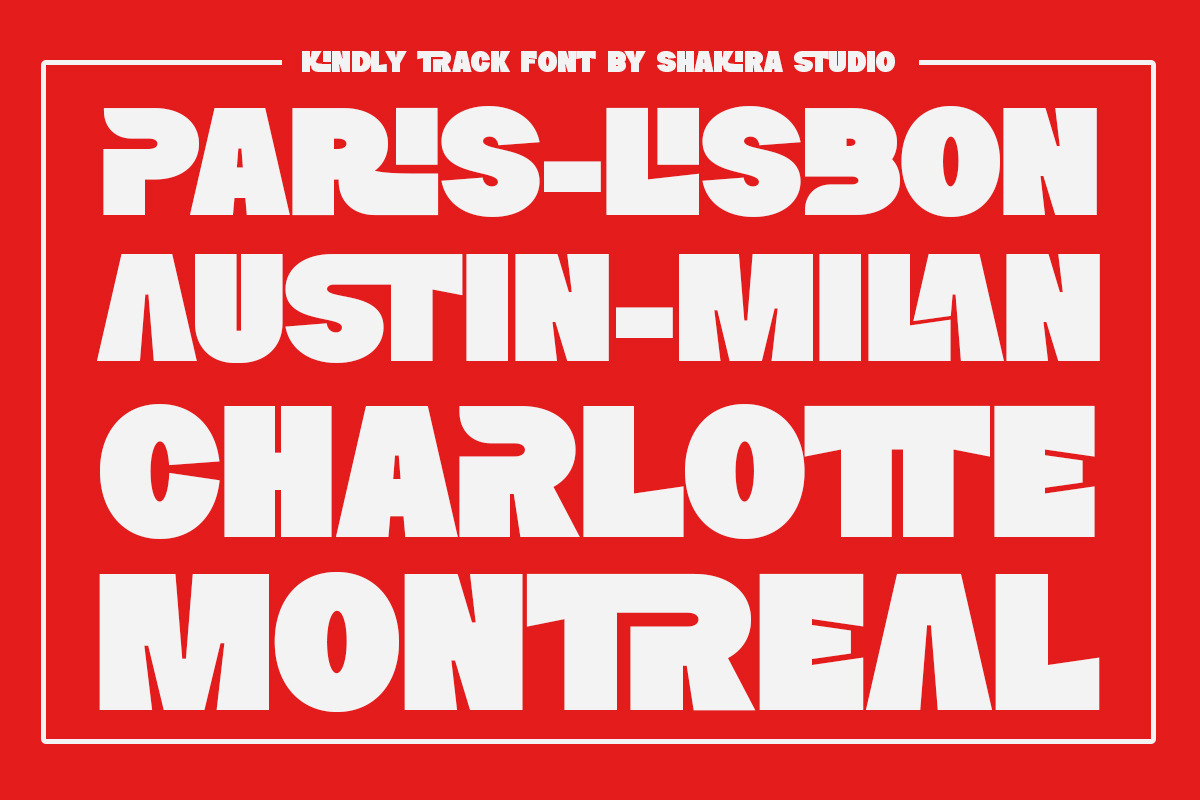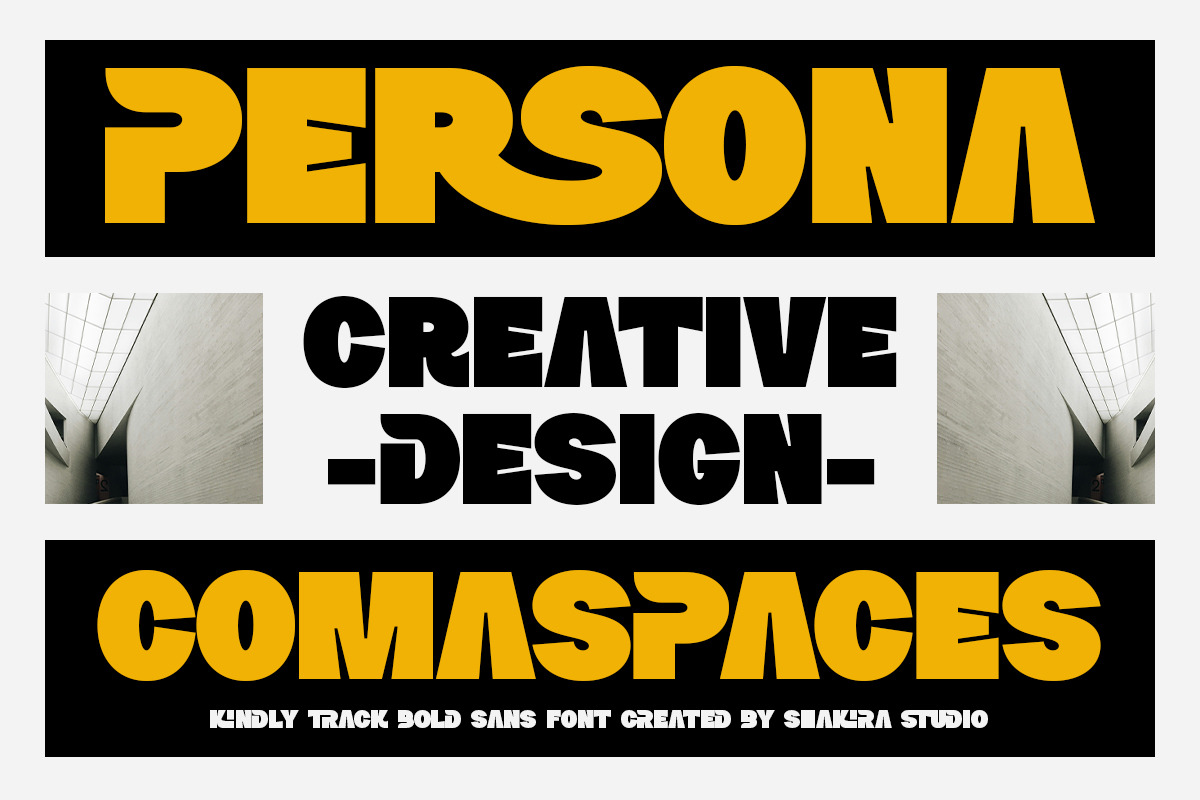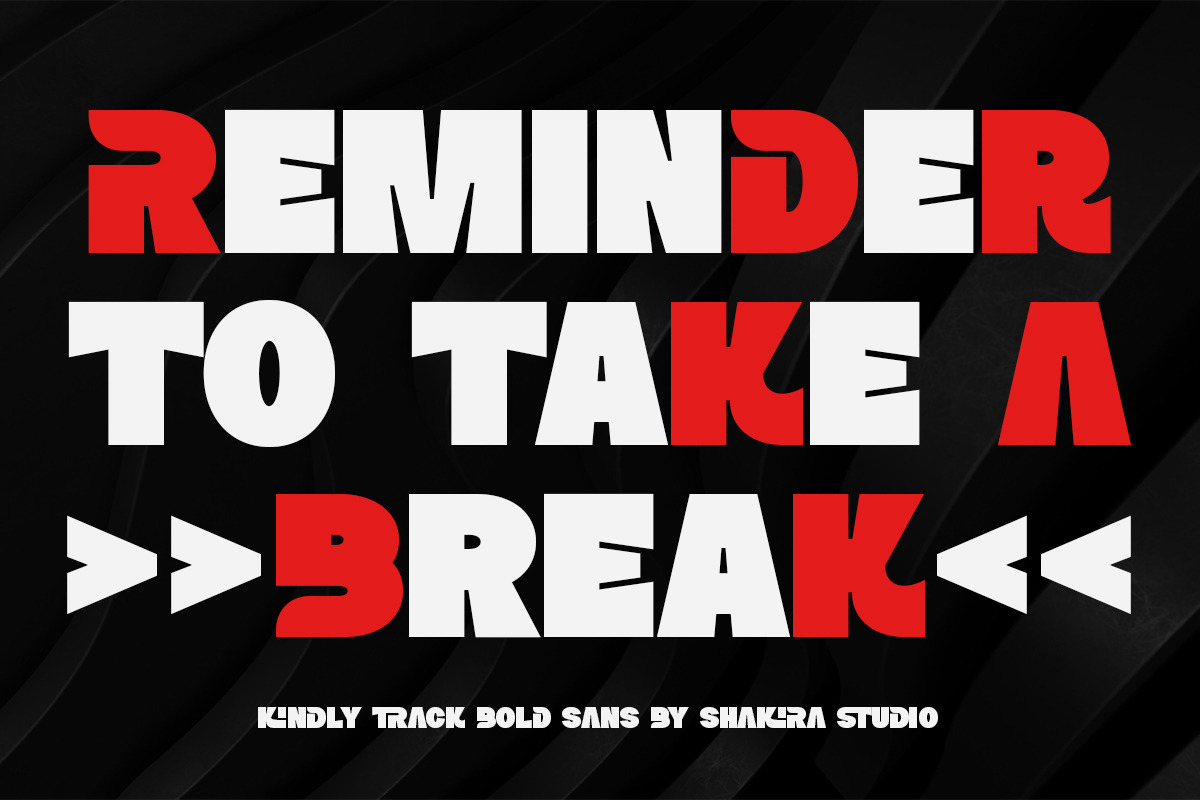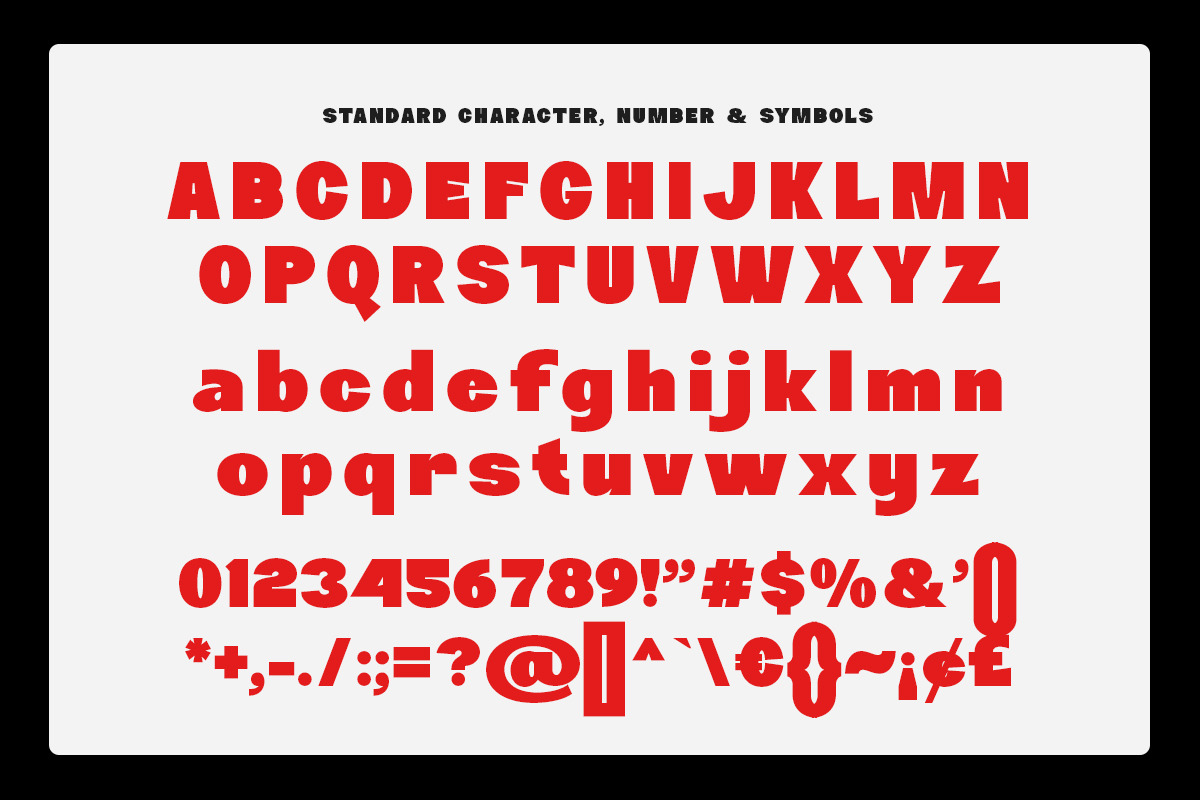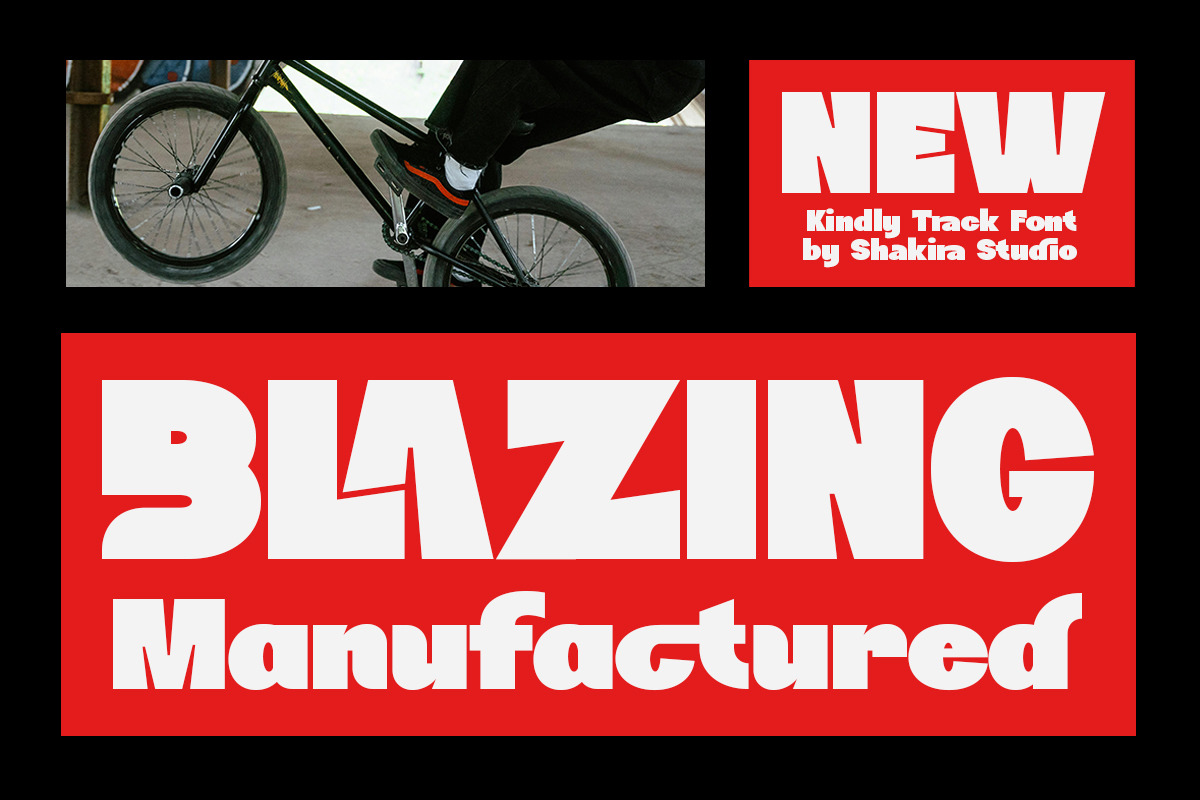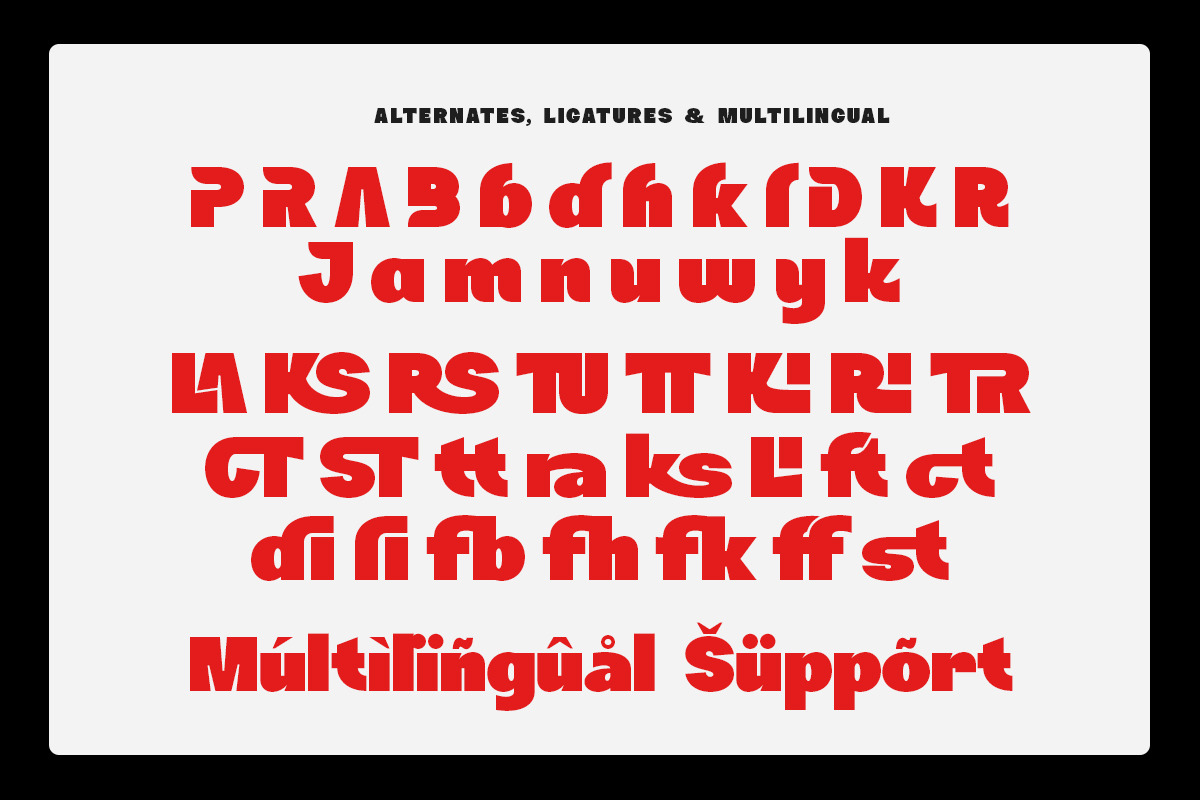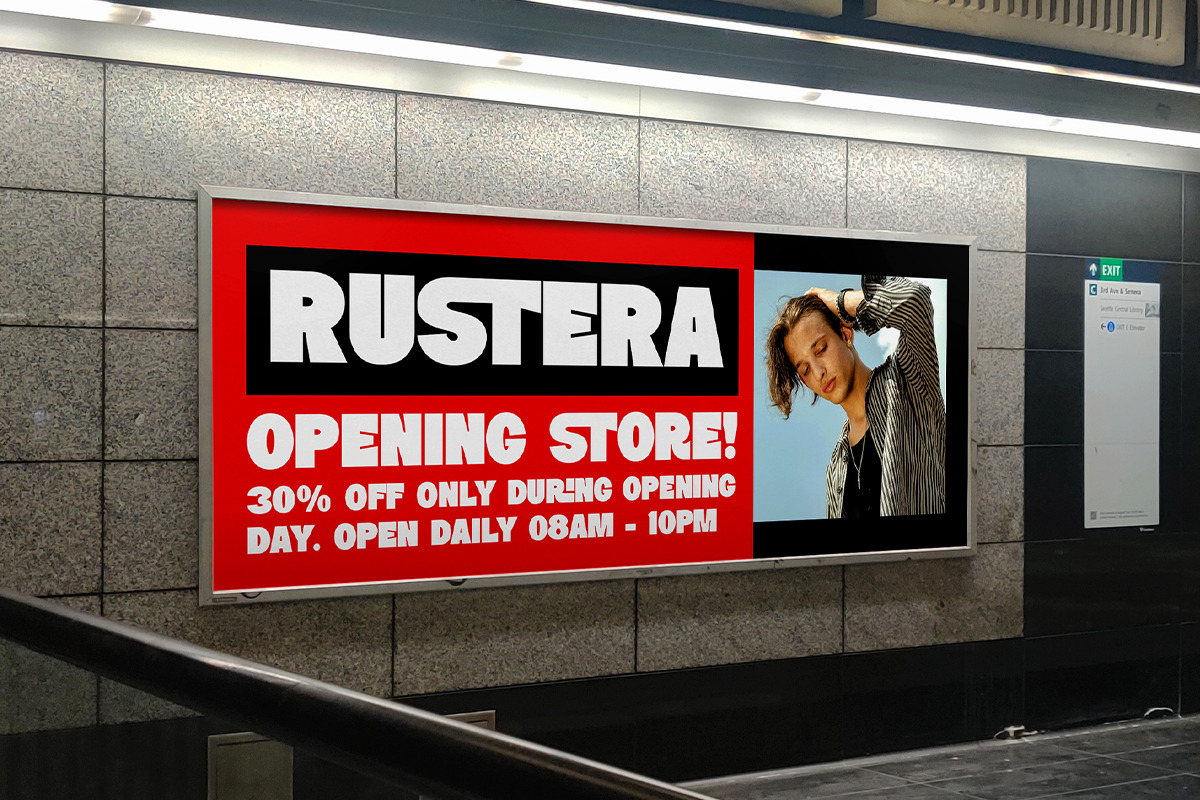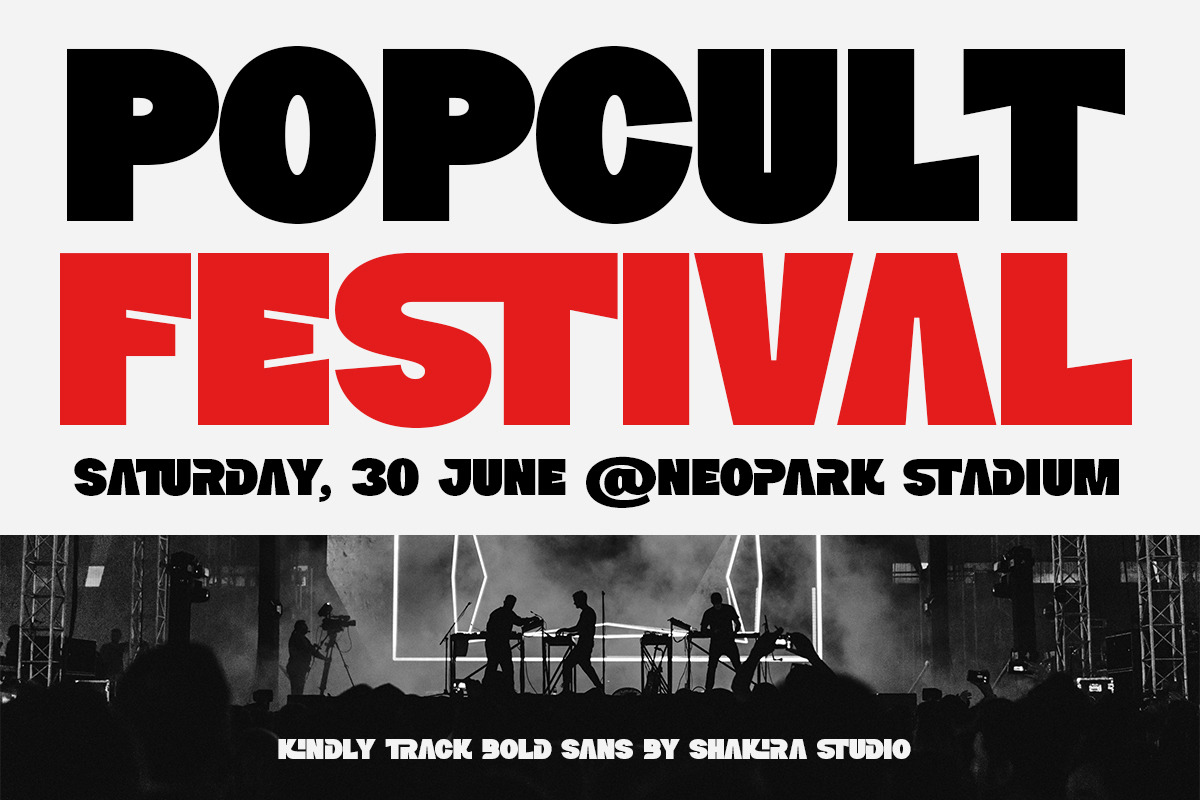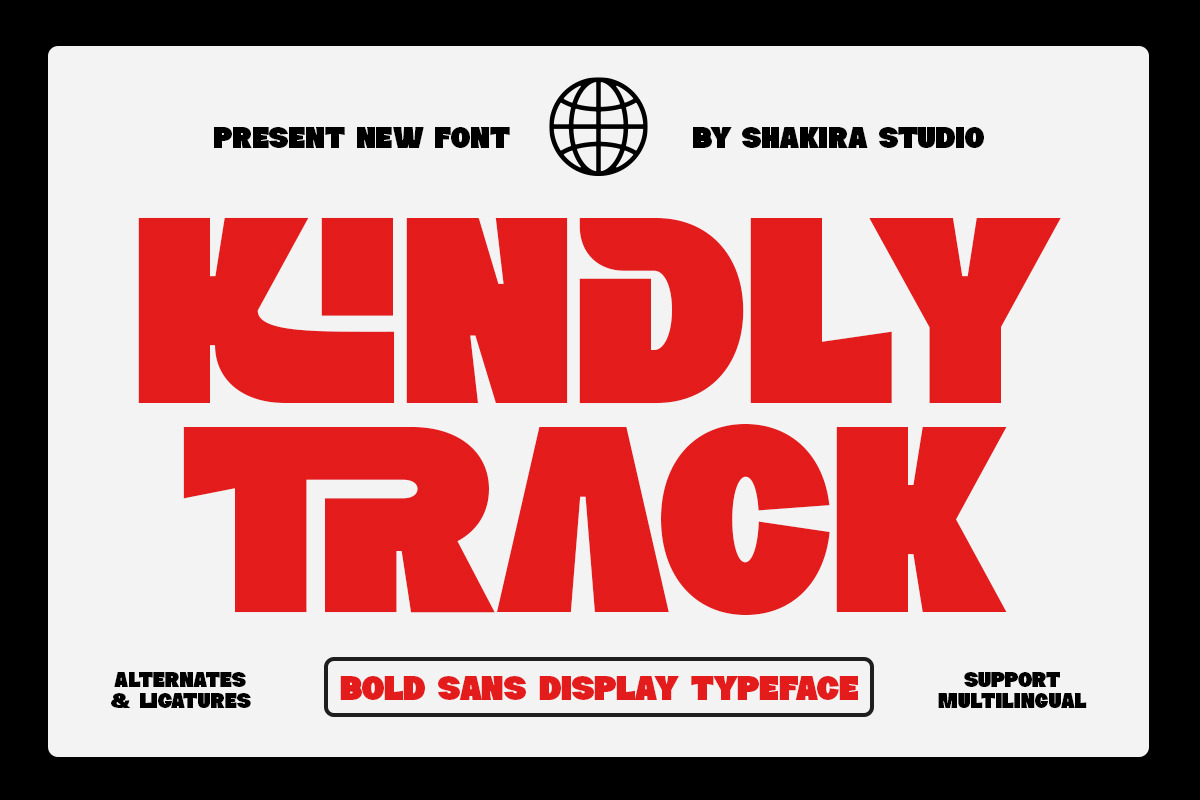
Kindly Track - Bold Typeface
Kindly Track is a bold sans serif display font that combines strength and sophistication. Its thick, impactful characters create a professional and luxurious feel, making it perfect for eye-catching designs, from branding to posters, headlines, and logos. With stylish alternates and ligatures, Kindly Track adds a modern, versatile touch to any creative project.